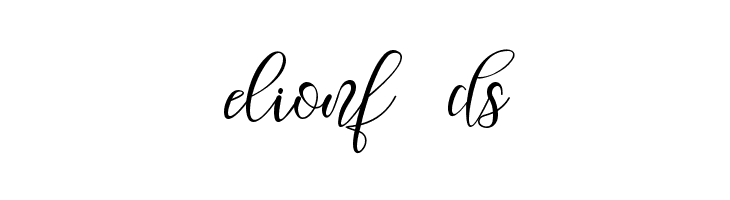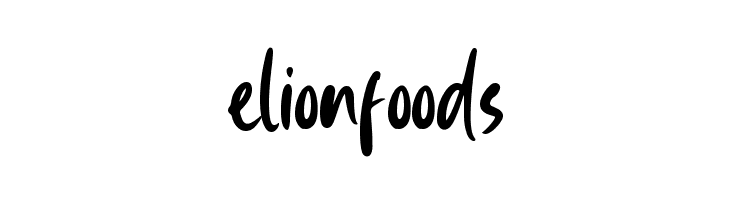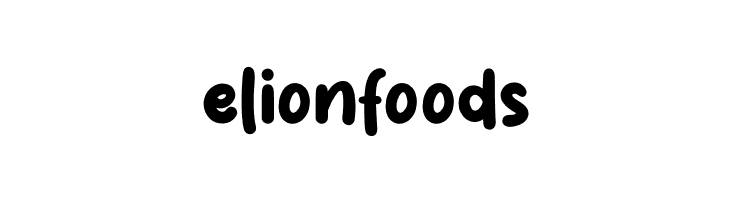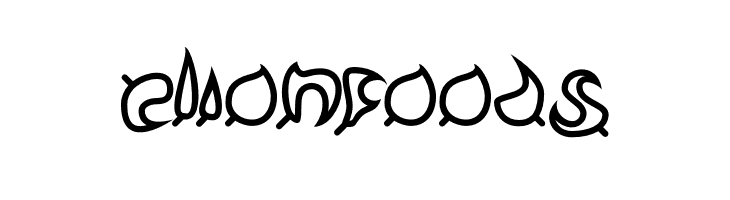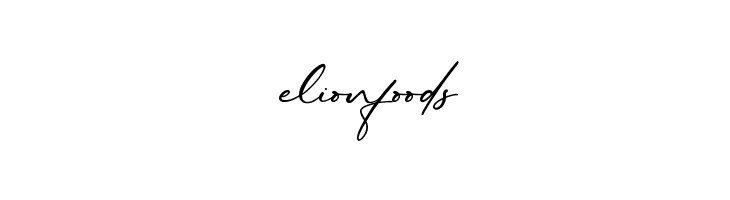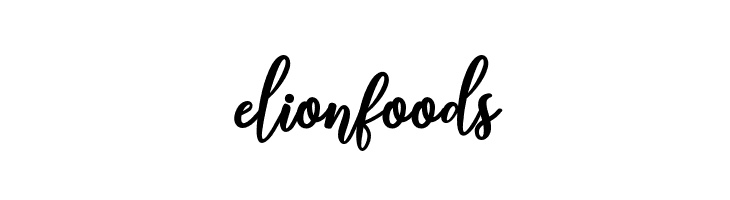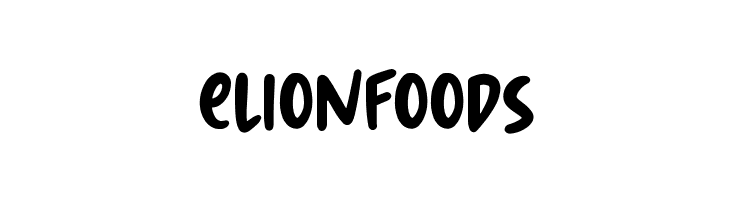
A whimsical and elegant script font with flowing, cursive forms and intricate loops.
A whimsical, cursive script font with elegant, flowing strokes.
A bold, playful font with a whimsical, hand-drawn style.
A bold, playful handwritten font with expressive strokes and a lively character.
A bold, hand-drawn font with rounded, playful characters.
A bold, decorative font with swirling, curvilinear forms and dynamic style.
A flowing, cursive font with elegant, elongated strokes and artistic flair.
A bold, flowing script font with high contrast and elegant curves.
A jagged, distressed font with an edgy, rebellious aesthetic.
A bold, playful handwritten font with a dynamic and casual style.